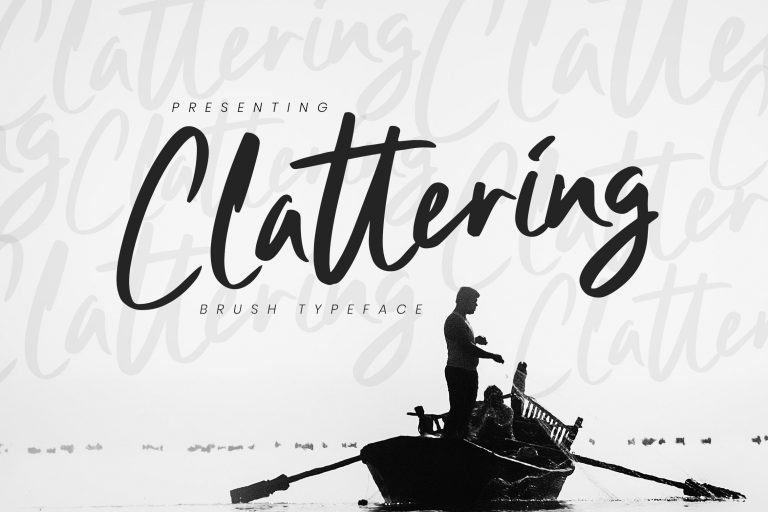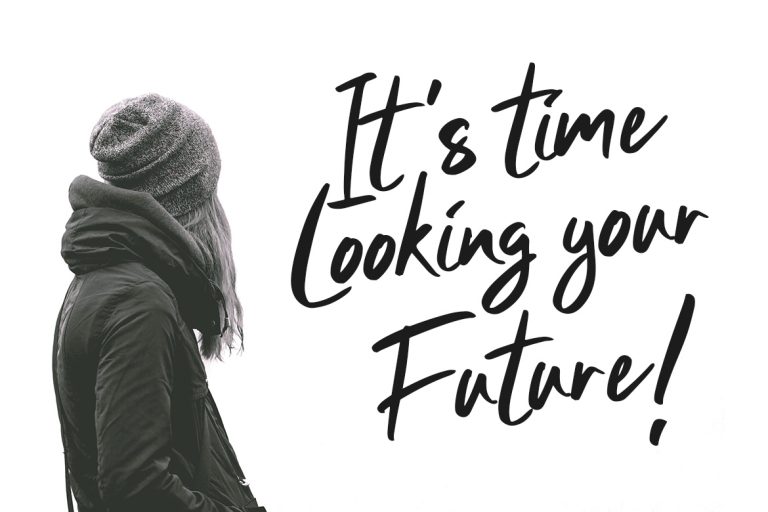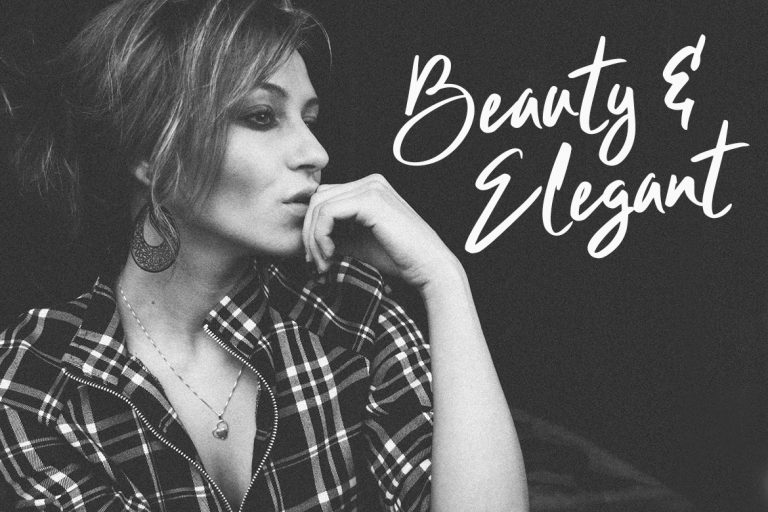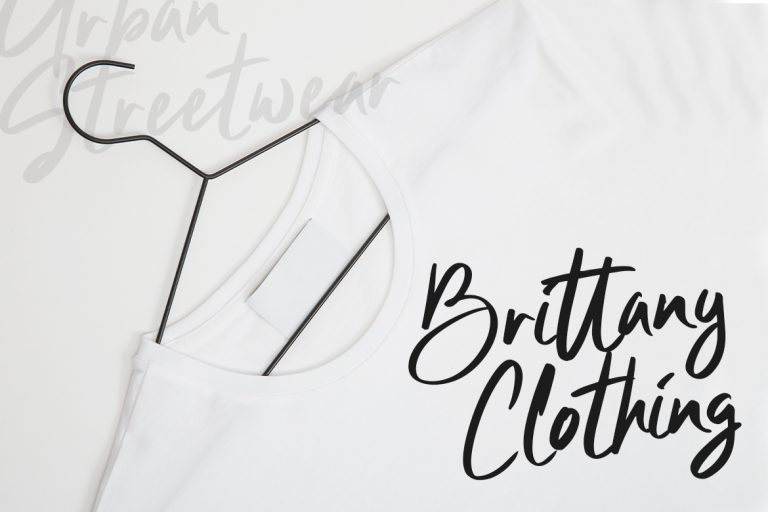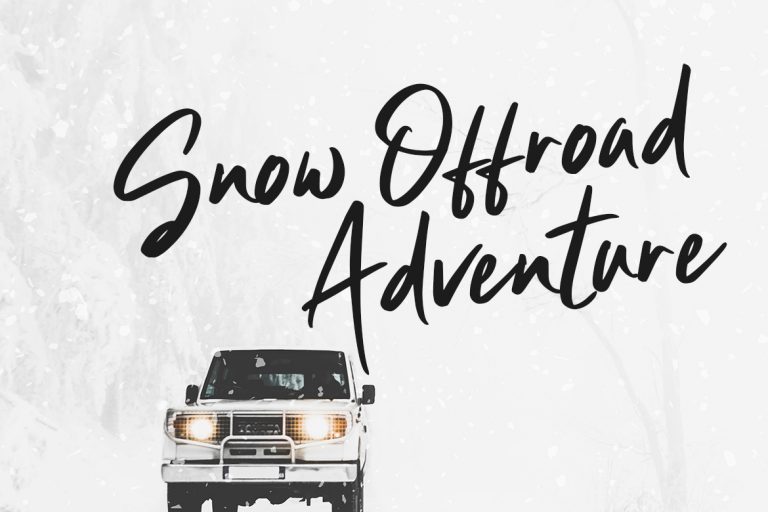
Nicely introducing Clattering Brush is a handmade brush font with free-flowing and confident bold between thick and thin curves.
Clattering Brush is perfect for branding projects, logo, wedding designs, social media posts, advertisements, product packaging, product designs, label, photography, watermark, invitation, stationery and any projects that need handwriting taste.
Clattering Brush Typeface